Let’s say you’re browsing Google Web Fonts for a free font to use on your website. You find one you like…
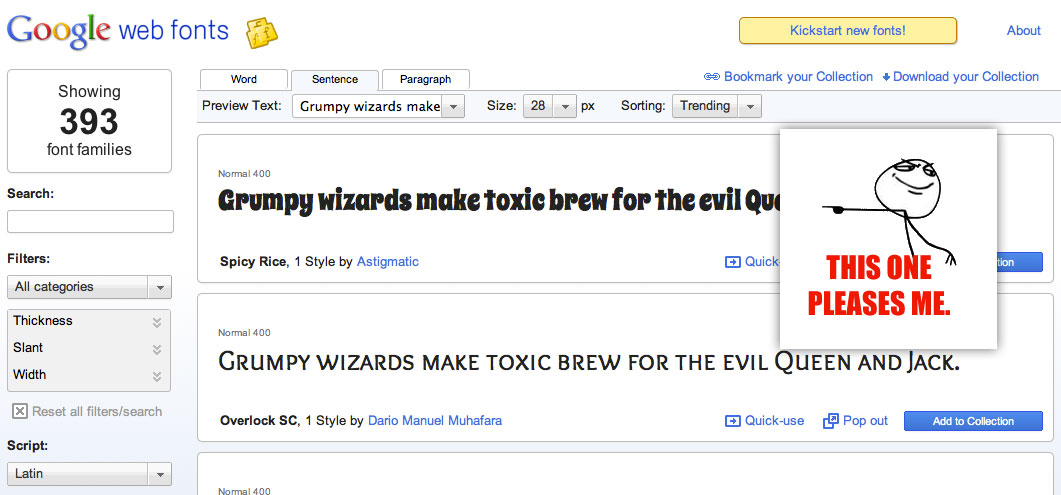
You think it will look nice as headings on your site. So you follow the directions on Google Web Fonts “quick use”.
And alas! You’ve done it, your headings are now in your specially picked out font:
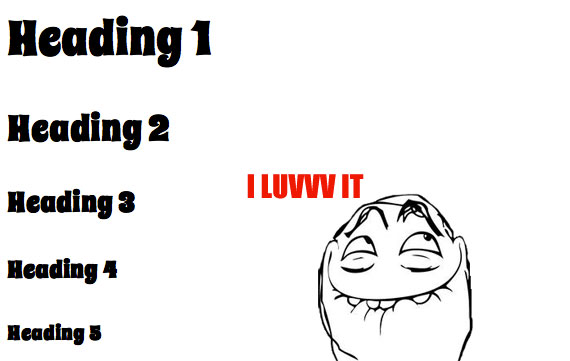
But then you start to notice that the font is a bit muddier than you’d like. It might be hard to explain, but it just doesn’t look as good as when you picked it off Google Web Fonts. Or maybe someone else notices and:
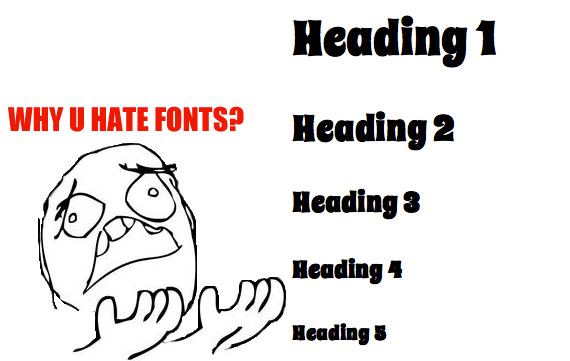
The problem is the font is muddier than you originally saw it, and it’s all about font-weight.
You see, the default font-weight for headings in browsers is “bold” (or more specifically, 700). And if you looked carefully when choosing this font, you might have noticed:
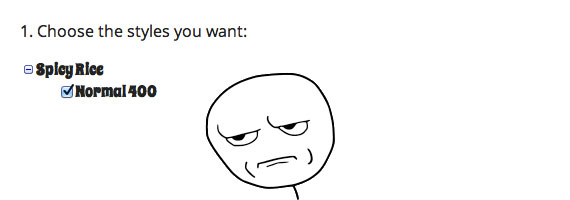
You might fall prey to this if:
- You don’t use a reset and didn’t specify a
font-weightfor headings (defaults to user-agent style ofbold). - You use Normalize.css instead of a reset, which doesn’t adjust the
font-weightsinceboldis consistent cross-browser default. - You explicity set
font-weighttoboldon headings (like you might if you use a reset).
This isn’t Google Web Fonts or the font itself’s fault. It’s just this font doesn’t come in a bold weight and you are asking for it specifically. That means the browser tries to bold the font for you, which is something it’s able to do but isn’t particularly good at (hence the muddiness).
Fixing it is as simple as being specific with your font-weight to match what the font offers.
h1, h2, h3, h4, h5 {
font-family: 'Spicy Rice', cursive;
font-weight: 400; /* Be specific */
/* Your other headings CSS */
}
So yeah. In short:
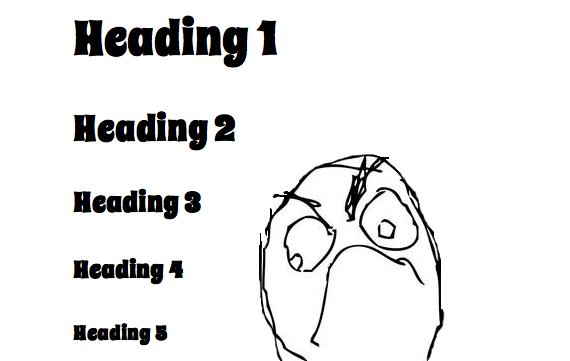
This is a problem most common in decorative fonts where it’s most common there is only one font-weight available. I’d say fonts from paid services like Typekit generally offer fonts with a wider variety of font-weights available, but that’s not to say it can’t be a problem with Typekit, as it’s smart/recommended to load as few weights as you can get away with to lighten the load of your page.
Also note, this is a common problem with italics as well. Say you decide to load a normal, bold, and italic version of a font. If you then have text that is both bold and italic, the browser will have to fake it (because it doesn’t have a bold-italic version available) and it will look bad. It happens to me on this site, but I don’t think loading an extra whole version of the site is worth it so I just try to avoid it.
This is only true for headings.
Well, and some other elements, of course; just wanted to clarify that it’s not the default for everything.
I second that. Chris, for the sake of clarity, you should repeat that you’re talking about headings here.
I updated it to be more specific.
Also, it’s 700 not 800 and I fixed that.
Also, worth noting that the default style for <strong> is “bolder” which is a specific keyword that increases the font weight relative to what it inherits, which can also cause the problems illustrated in this article. Mapping:
inherited bolder
100 400
200 400
300 400
400 700
500 700
600 900
700 900
800 900
900 900
Hi Chris
I never comment here but I always follow your posts with great interest, but today I wanted to say I really loved the extra meme faces :)
I like this article, but I find that font-face is a little too new. These web fonts each behave differently, so adjusting text-indent, padding, etc. will be almost impossible for fallbacks.
I hope that everyone’ll get a newer browser :)
wow thanks chris
I have noticed this muddiness before and could NEVER explain it and now i feel so happy
<3
I have quite a different problem with some of the WebFonts. They appear “pixelated”, and very distorted. I use the regular font-weight (400) for Droid Sans and no matter what, the fonts look like shit. I used some tricks (small stroke, antialias, etc.) but it still looks terrible. Any idea why?
I have an example here: http://antjanus.com/testing
I see no problem with the fonts; they’re all perfectly smooth. I’ve had this problem on Windows, whilst they work nicely in my Mac. Could be that.
I’ve had problems with @font-face, but sadly not due to this, so they’re still unfixed, even whilst using read-made CSS for them.
Great stuff! Useful!
Great timing, I just ran into this issue. Thanks Chris.